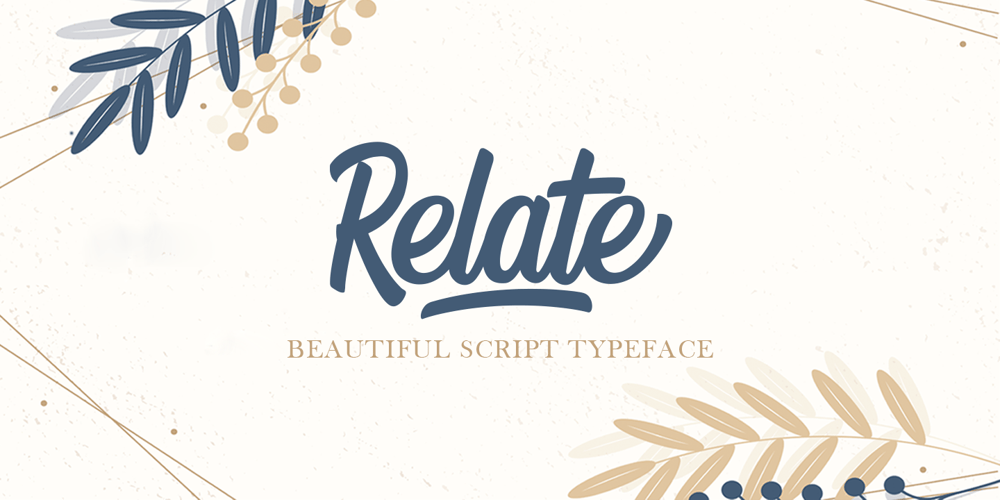
Relate Font Family was designed by Khaidir Fajri and published by Panritype Studio. Relate contains 1 styles and family package options. Relate is modern, elegant, beautiful script. it is made by real pen brush, and shaping carefully. It’s perfect for logotype project, wedding invitation, social media headlines, birthday card, quotes, t-shirt and also match with other design project. Relate comes with natural handwriting ligatures and extra final word alternates and swashes that can make your project more beautiful and elegant.